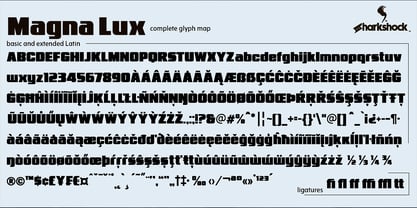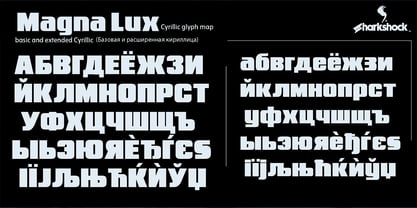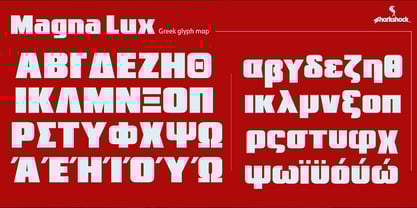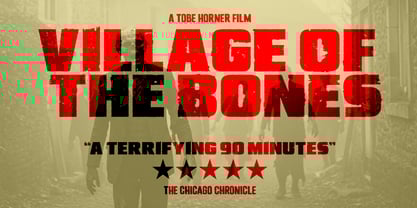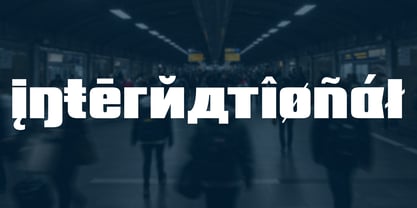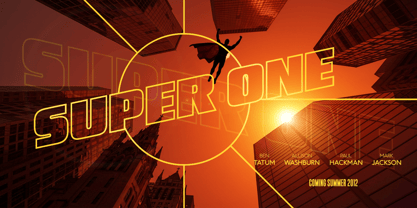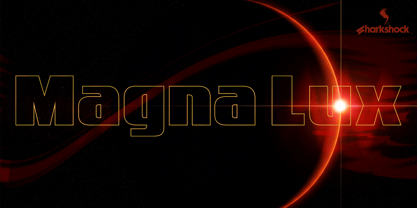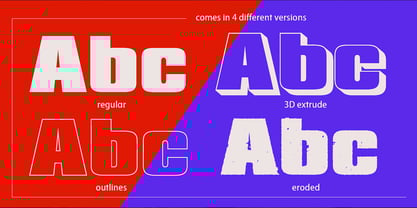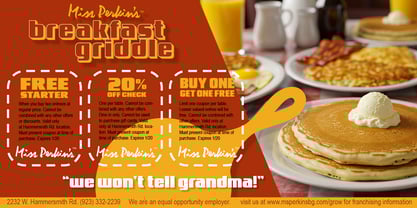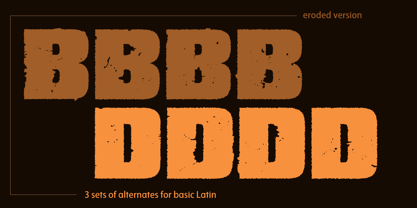
Magna Lux
von Sharkshock
Die Schriftfamilie Magna Lux wurde von Dennis Ludlow entworfen und von Sharkshock veröffentlicht. Magna Lux enthält 4 Stile und Familienpaketoptionen.
After a series of updates to the Republica Minor family enough changes were made that an entirely new family was born. Magna Lux keeps the overall feel of the legacy version but many characters were completely redrawn. Those changes were incorporated into the rest of the font giving it a refreshed, more consistent look. Uppercase characters are bold in stature with minimal negative space. Lowercase features an emphasis on clean curves and broad line weights with short ascenders and descenders. These characteristics are shared amongst other members such as numbers. Use it for a team logo, magazine cover, or web graphics.
Magna Lux comes in 4 different versions, includes Basic and Extended Latin, punctuation, kerning, alternates (eroded), Cyrillic, and Greek. The eroded version can cycle through several instances of the same letter if your software supports opentype features. Please check the glyph maps for all supported characters.